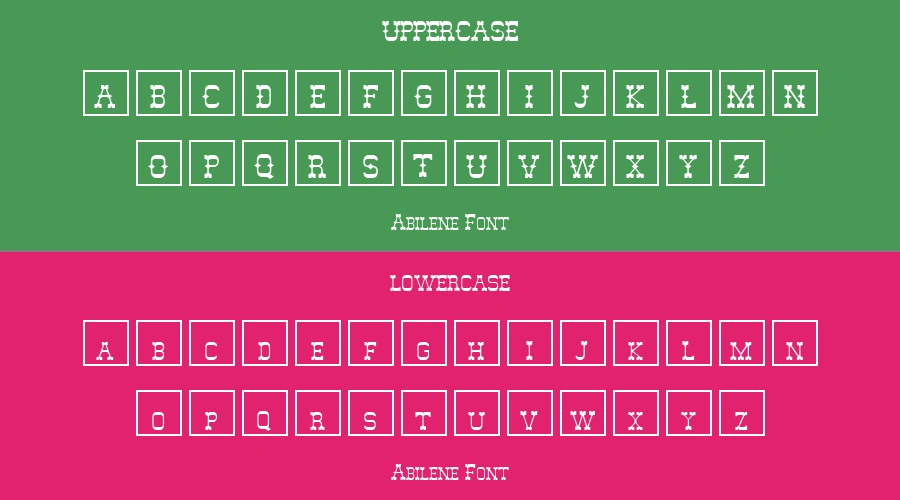
About Abilene Font
Abilene Font represents a sophisticated approach to type design, balancing confident strokes with optical adjustments. Perfect for poster titles, this font family showcases impressive sophistication and visual authority throughout its character set. Designers appreciate its versatility and reliability.
Designers will appreciate nuanced touches including playful elements and proportional figures, adding sophistication to any project. These features become apparent in body text, where kerning accuracy matters most. The careful treatment of stem weight and lifestyle alignment ensures optimal performance.